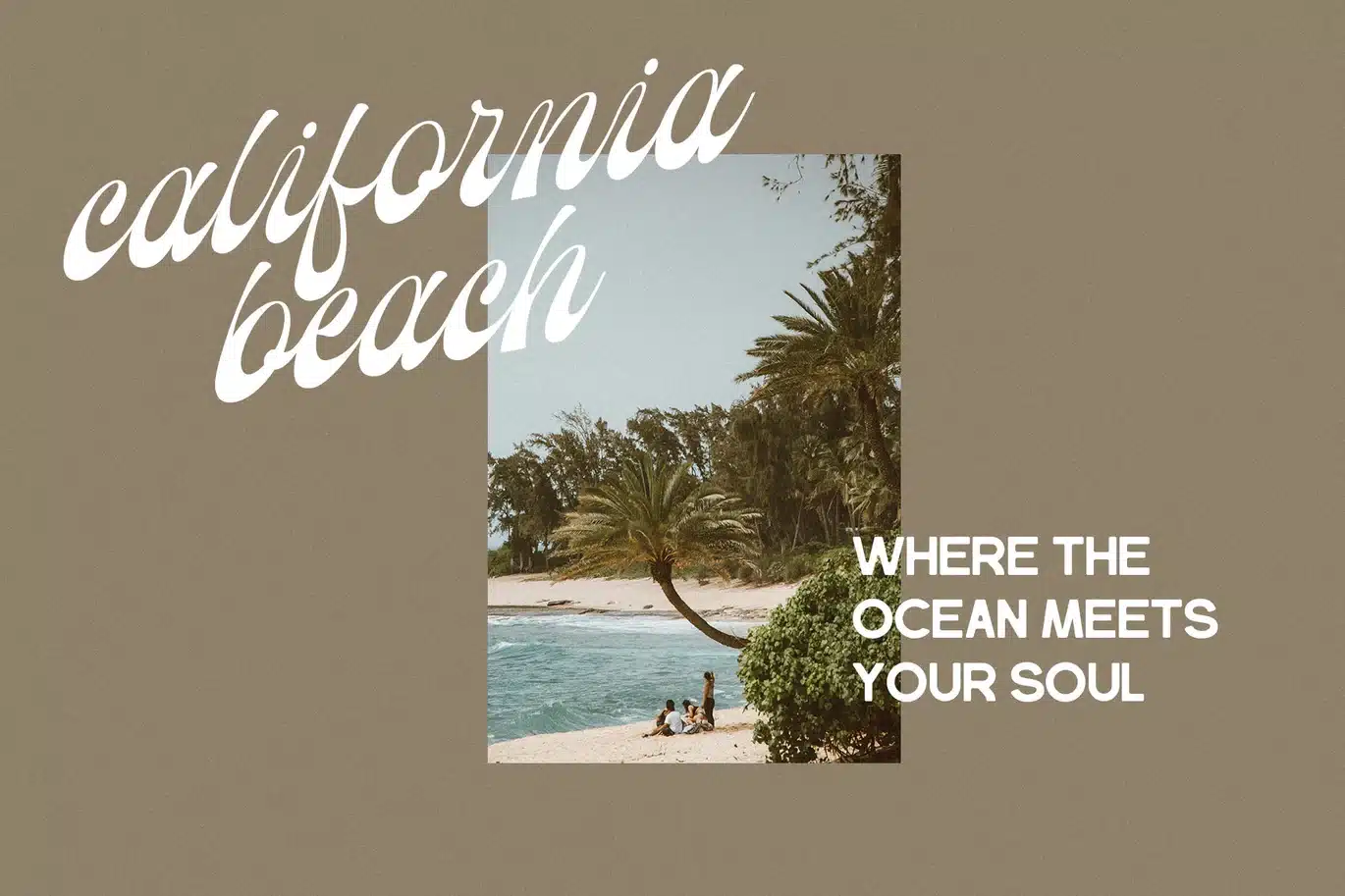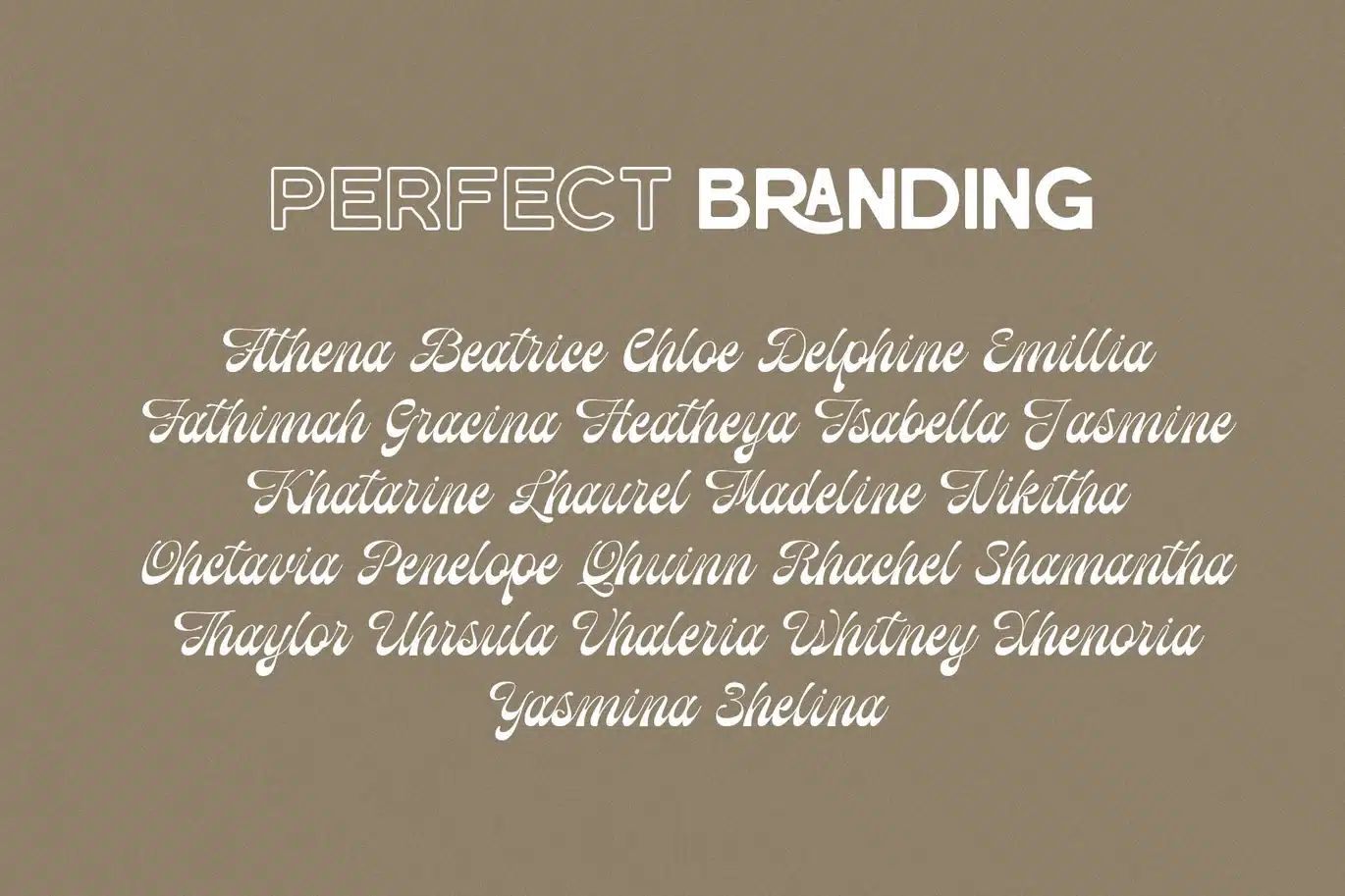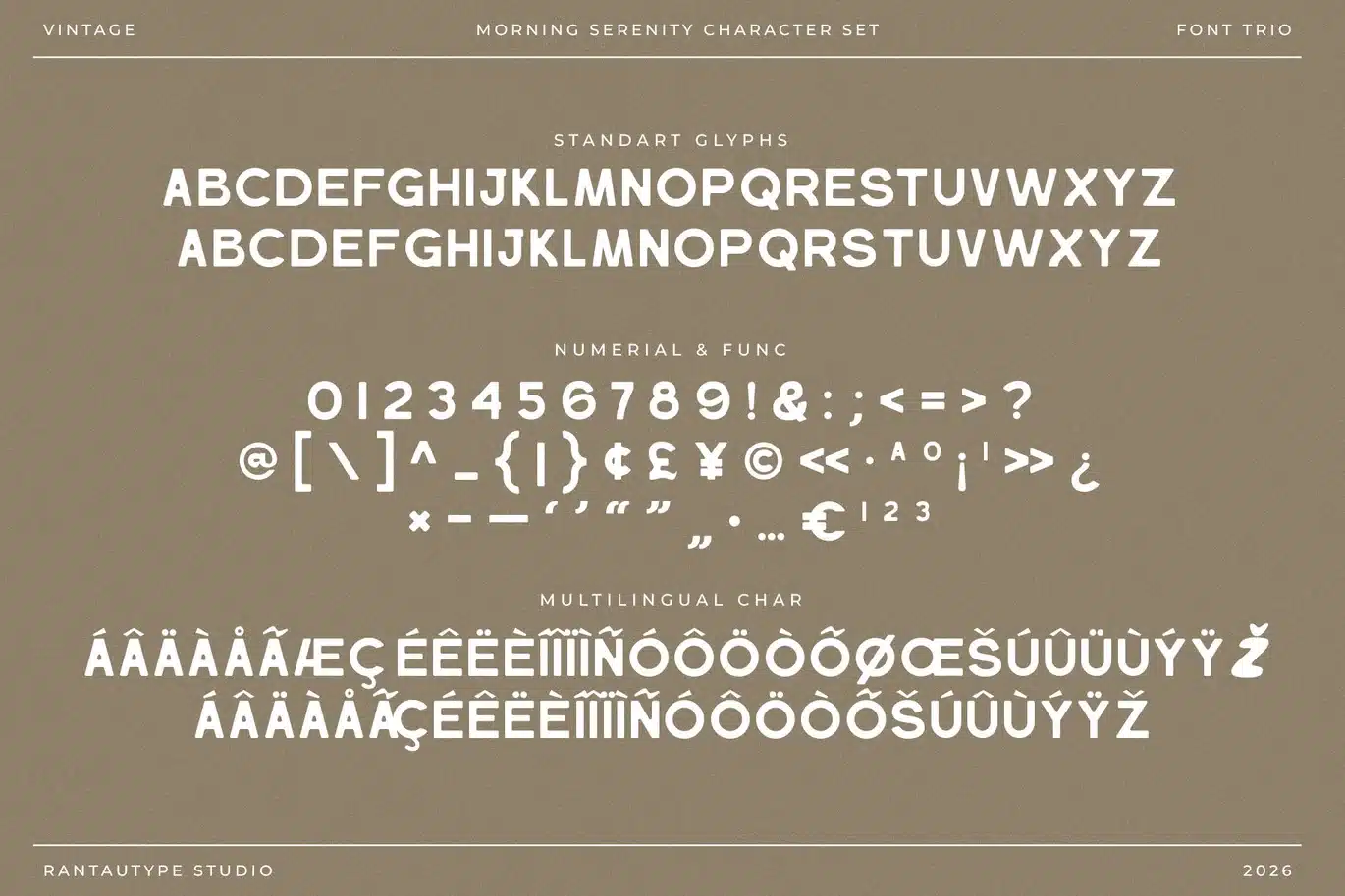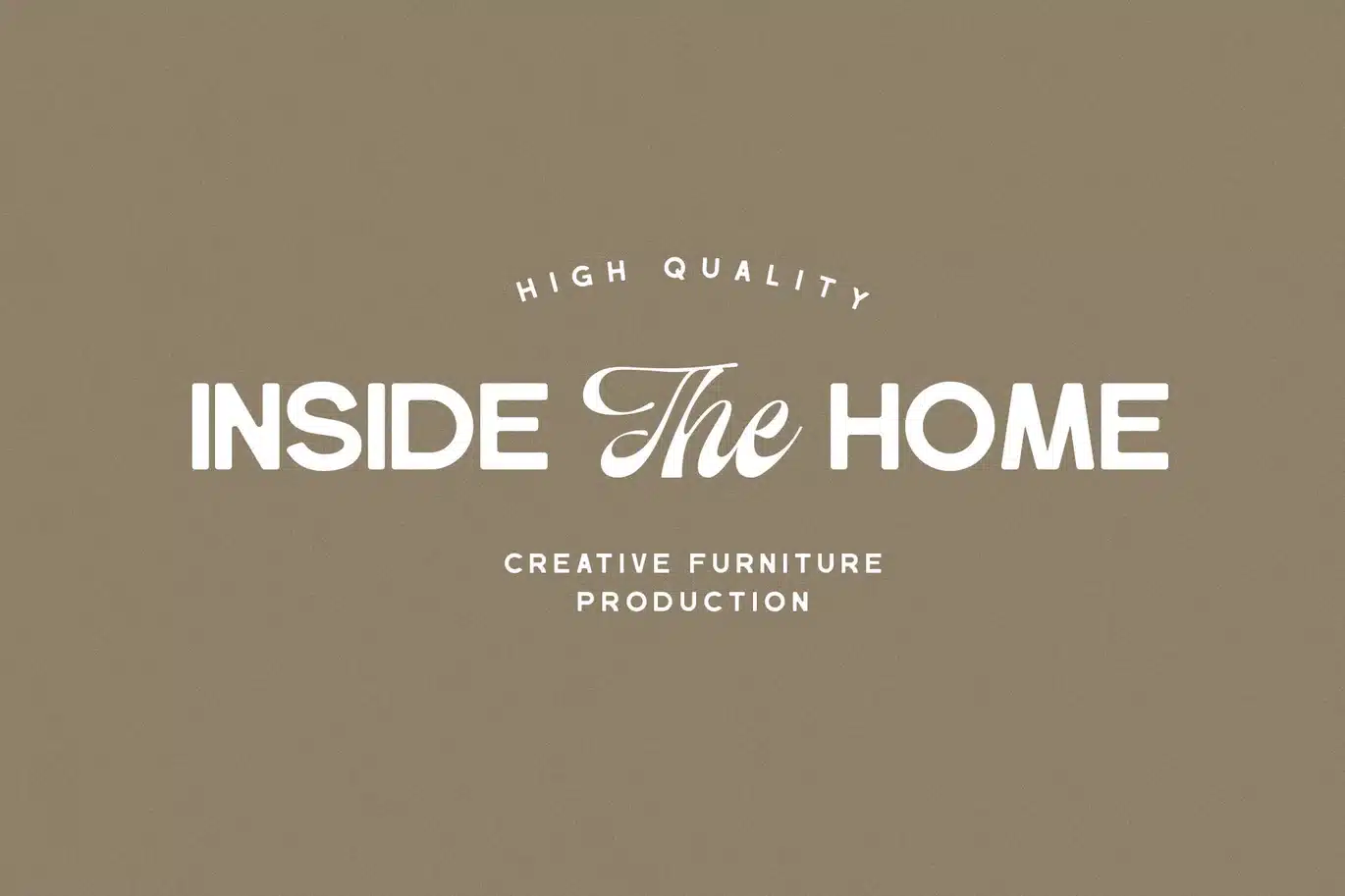
Morning Serenity Vintage Sans & Script Font
Morning Serenity is font trio captures the perfect balance between structure and emotion, creating a timeless visual identity that feels both classic and expressive. Rooted in nostalgic design eras such as the 60s, 70s, and early print advertising age, this pairing brings warmth, authenticity, and character into any creative project.
Morning Serenity is a perfectly choice for any creative endeavor, creating, modern, lifestyle design such as logotype, title, cover, branding, invitations, wedding designs, display and magazine, social media posts, advertisements, printed quotes, product packaging, corporate brand, product designs, labels, photography, watermarks, special events and any other project with vintage touch.
- Standart Glyphs
- Numberial and Functional
- Alternate and Ligature
- Support Multilingual Character